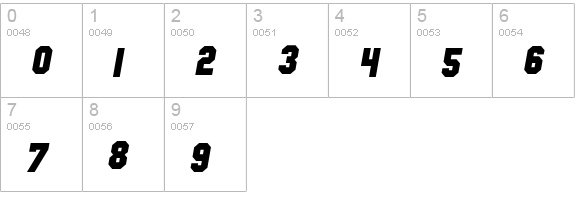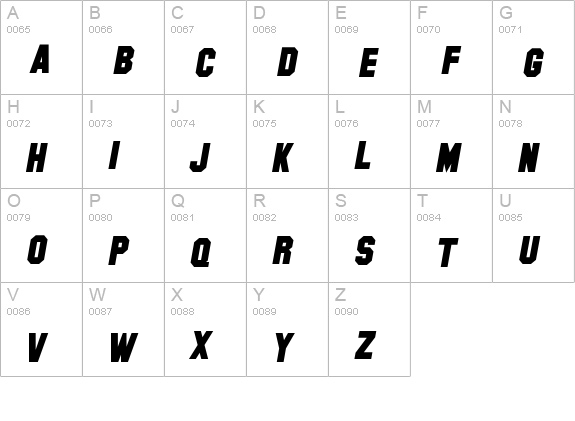
Hollywood Hills Bold Italic is a strong, high-contrast, italic variant in the Hollywood typeface family \xE2\x80\x94 well suited to headlines, attention-grabbing titles, and strong calls-to-action.
Introducing Hollywood Hills Bold Italic font, a sleek and sophisticated typeface that exudes elegance and charm. This stylish font is perfect for adding a touch of glamour to your designs, whether you're working on a movie poster, magazine cover, or branding project. With its bold and italicized characteristics, Hollywood Hills Bold Italic font commands attention and makes a statement. Its clean lines and modern aesthetic make it a versatile choice for a variety of design applications. And the best part? Hollywood Hills Bold Italic font is available for free download at FontsMarket.com. Now you can elevate your projects with this stunning font without breaking the bank. Don't miss out on the opportunity to add Hollywood Hills Bold Italic font to your font collection today!